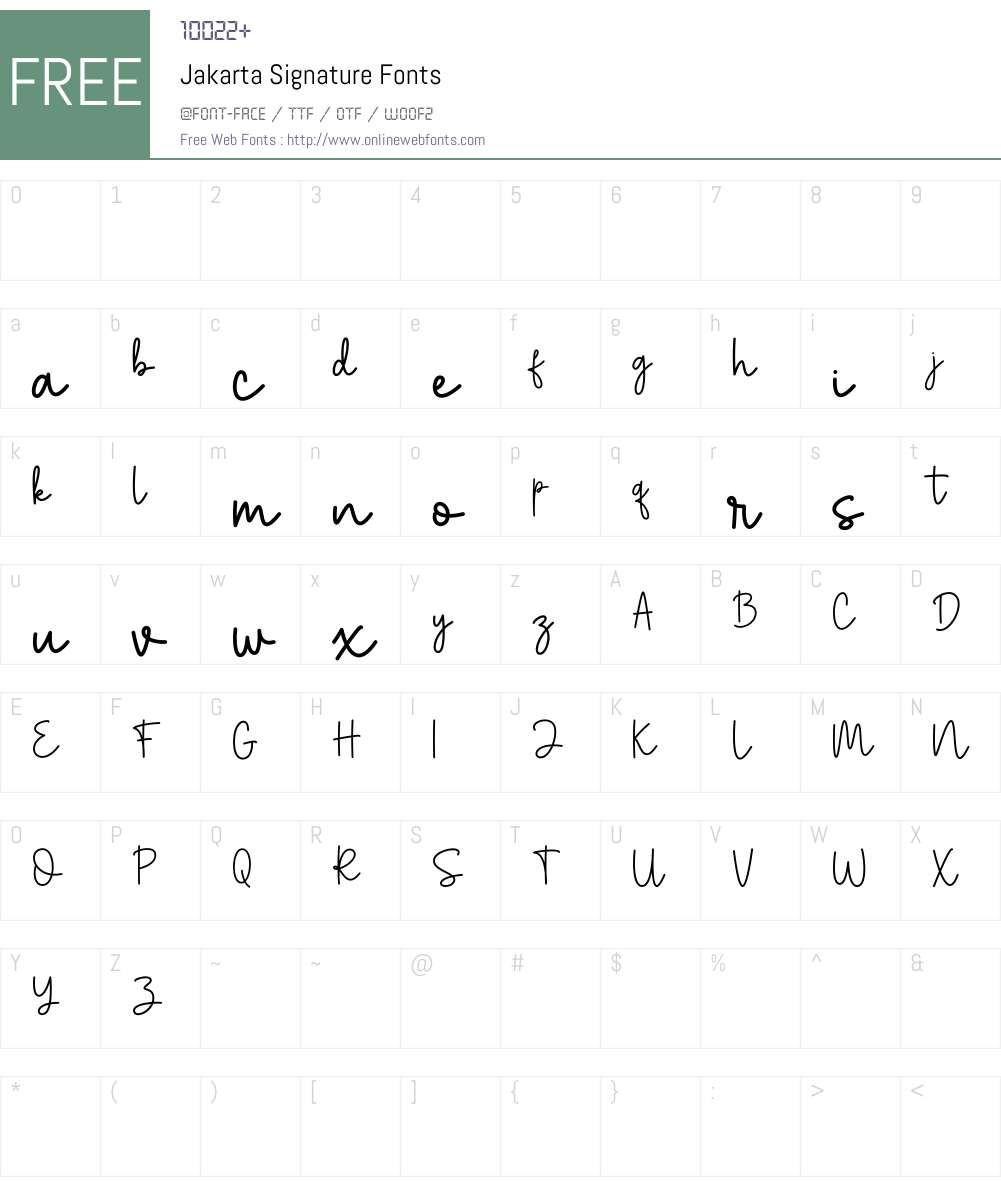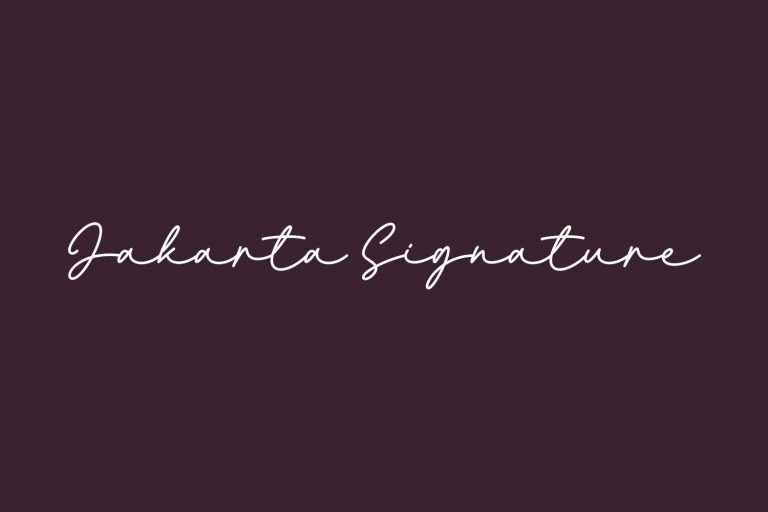
This font is only for personal use. 10,909 downloads (1 yesterday) free for personal use. Jakarta signature à by av type. download and install the jakarta signature font by av type. 144,041 downloads (10 yesterday) free for. The jakarta signature font has been downloaded 1,680 times. jakarta signature is a monoline script font with a handwritten style that makes the jakarta signature font look like a natural writing. Moreover, you can embed it to your website with. free download of jakarta signature font. If you would like to use this font for commercial use you have to purchase a.
Jakarta Signature Font The jakarta signature font has been downloaded 1,680 times. download and install the jakarta signature font by av type. The jakarta signature font has been downloaded 1,680 times. 144,041 downloads (10 yesterday) free for. jakarta signature is a monoline script font with a handwritten style that makes the jakarta signature font look like a natural writing. This font is only for personal use. 10,909 downloads (1 yesterday) free for personal use. Jakarta signature by alvaro ariel. free download of jakarta signature font. Moreover, you can embed it to your website with. Jakarta signature à by av type. If you would like to use this font for commercial use you have to purchase a.
Jakarta Signature Font Download Jakarta Signature Font jakarta signature is a monoline script font with a handwritten style that makes the jakarta signature font look like a natural writing. This font is only for personal use. The jakarta signature font has been downloaded 1,680 times. free download of jakarta signature font. Moreover, you can embed it to your website with. If you would like to. Jakarta Signature Font.
Jakarta Signature, Fonts GraphicRiver Jakarta Signature Font The jakarta signature font has been downloaded 1,680 times. 144,041 downloads (10 yesterday) free for. This font is only for personal use. download and install the jakarta signature font by av type. Moreover, you can embed it to your website with. jakarta signature is a monoline script font with a handwritten style that makes the jakarta signature font. Jakarta Signature Font.
Jakarta Signature font Jakarta Signature Font Jakarta signature by alvaro ariel. The jakarta signature font has been downloaded 1,680 times. If you would like to use this font for commercial use you have to purchase a. free download of jakarta signature font. 144,041 downloads (10 yesterday) free for. 10,909 downloads (1 yesterday) free for personal use. Moreover, you can embed it to your website with.. Jakarta Signature Font.
Jakarta Signature Font This font is only for personal use. If you would like to use this font for commercial use you have to purchase a. Jakarta signature à by av type. The jakarta signature font has been downloaded 1,680 times. jakarta signature is a monoline script font with a handwritten style that makes the jakarta signature font look like a natural. Jakarta Signature Font.
Jakarta Signature Font · 1001 Fonts Jakarta Signature Font Jakarta signature by alvaro ariel. This font is only for personal use. jakarta signature is a monoline script font with a handwritten style that makes the jakarta signature font look like a natural writing. Moreover, you can embed it to your website with. free download of jakarta signature font. download and install the jakarta signature font by. Jakarta Signature Font.
Jakarta Signature font by Alvaro Ariel FontRiver Jakarta Signature Font download and install the jakarta signature font by av type. This font is only for personal use. If you would like to use this font for commercial use you have to purchase a. Jakarta signature à by av type. jakarta signature is a monoline script font with a handwritten style that makes the jakarta signature font look like. Jakarta Signature Font.
Jakarta Font Jakarta Signature Font The jakarta signature font has been downloaded 1,680 times. Jakarta signature by alvaro ariel. free download of jakarta signature font. This font is only for personal use. jakarta signature is a monoline script font with a handwritten style that makes the jakarta signature font look like a natural writing. Moreover, you can embed it to your website with.. Jakarta Signature Font.